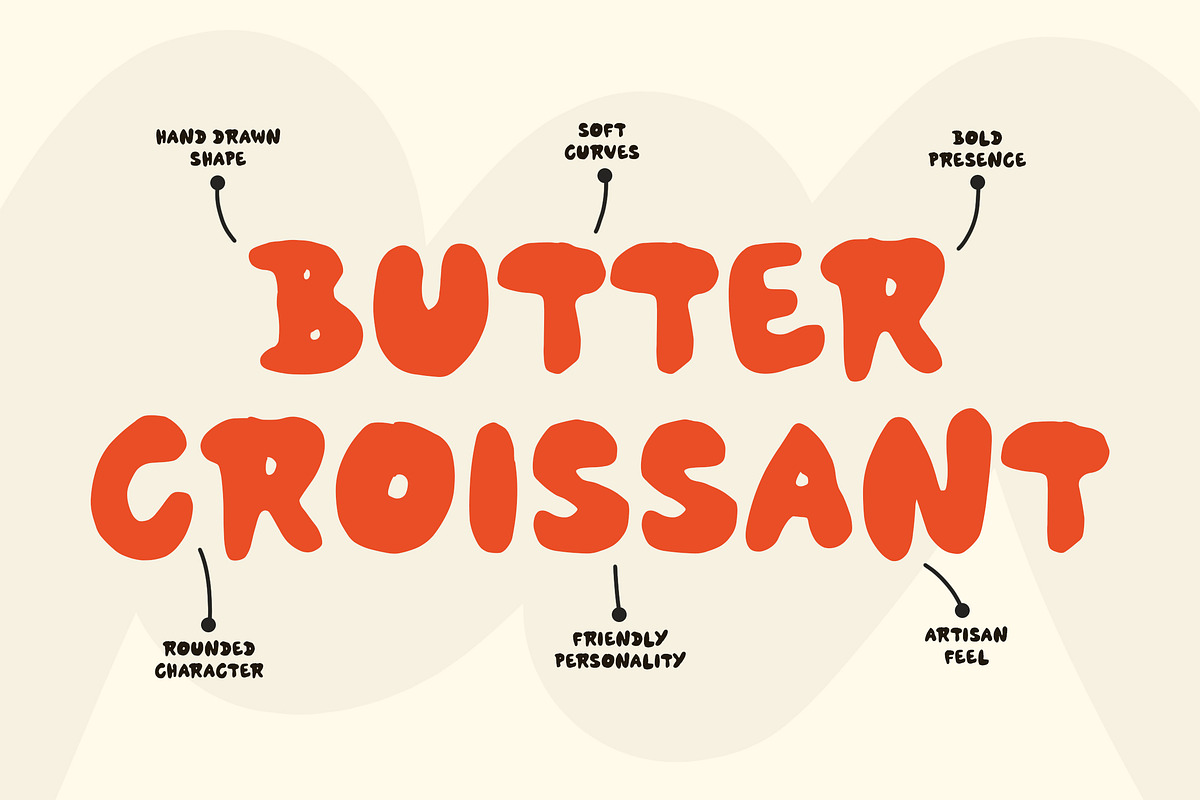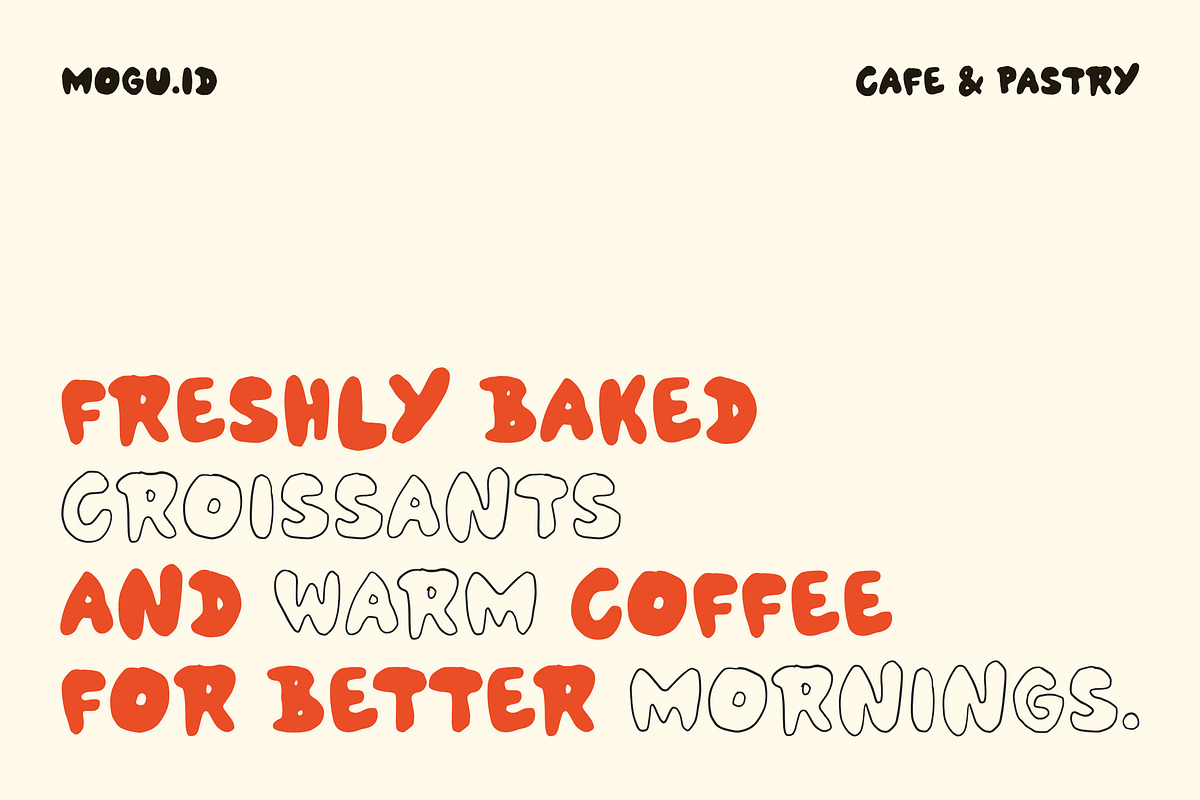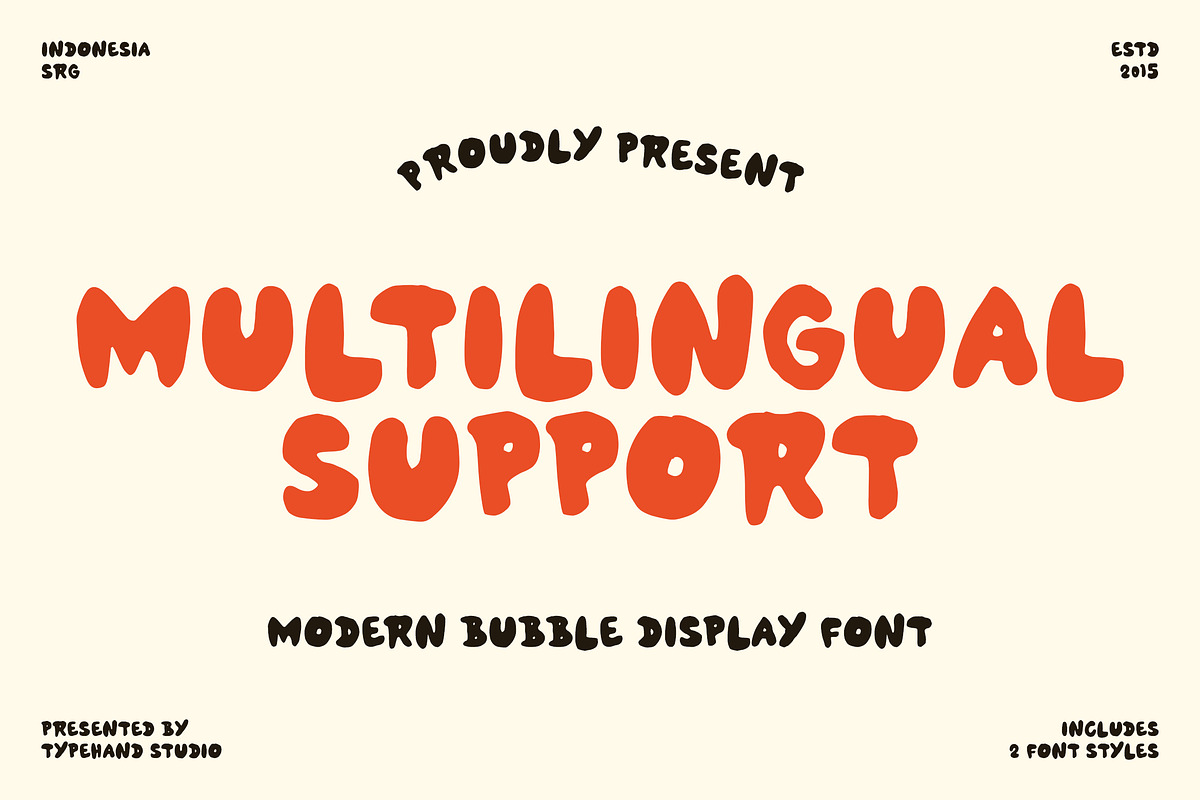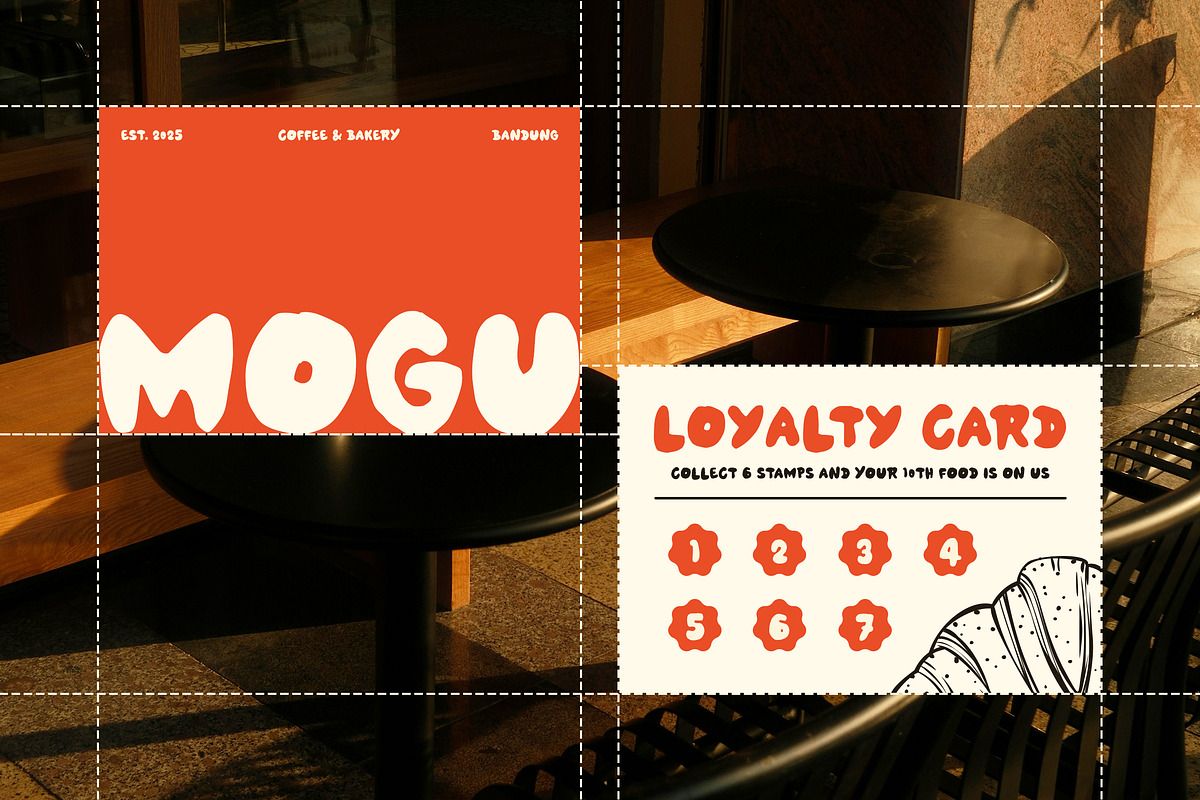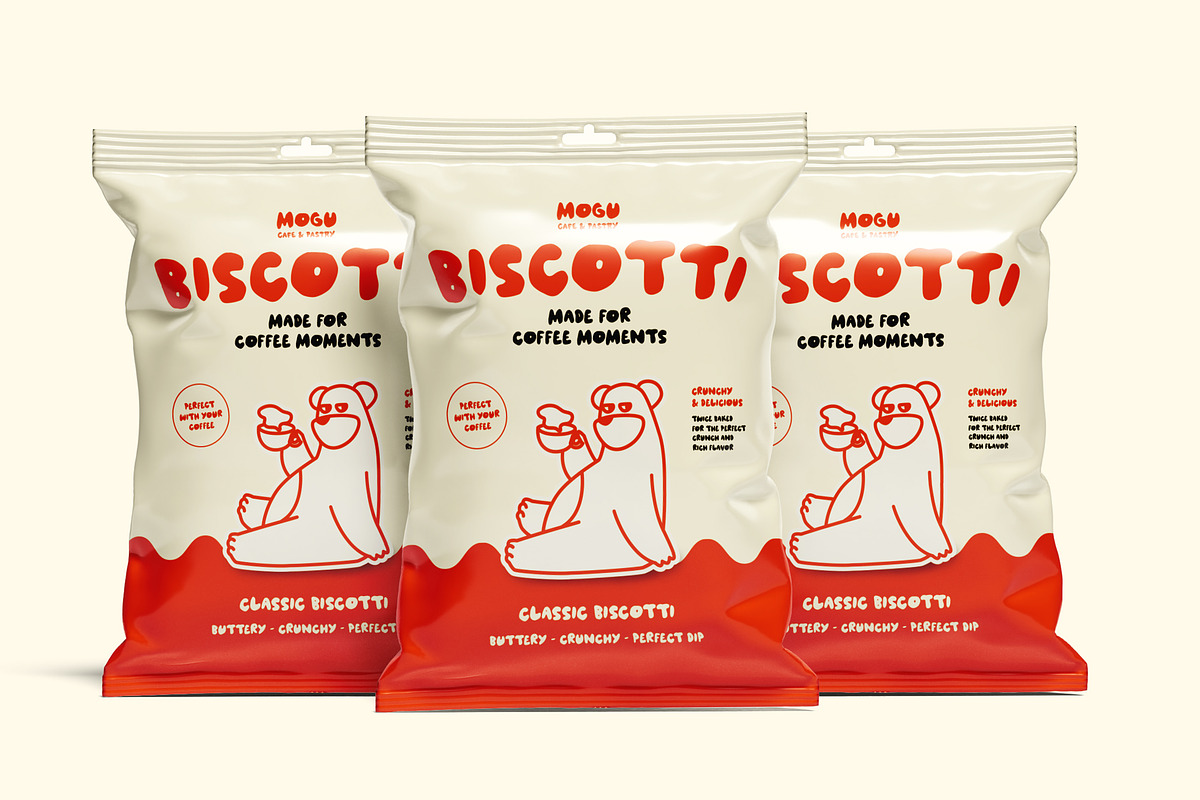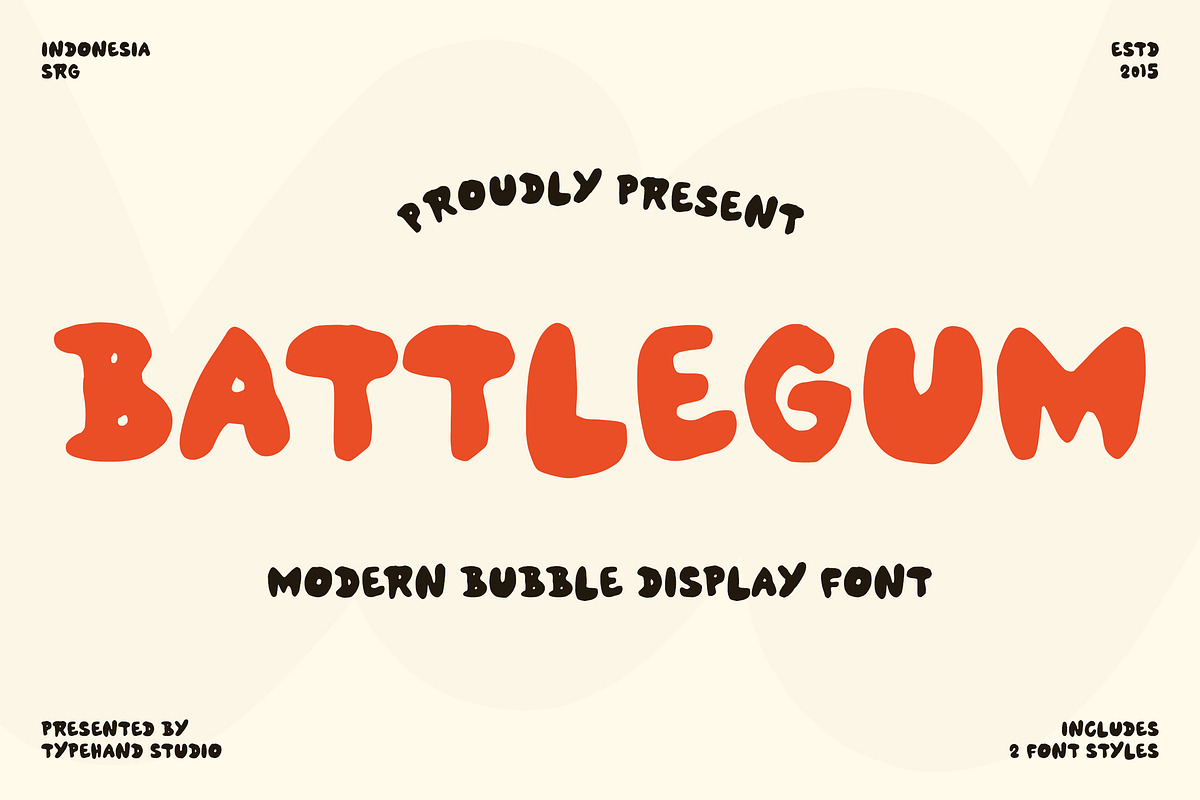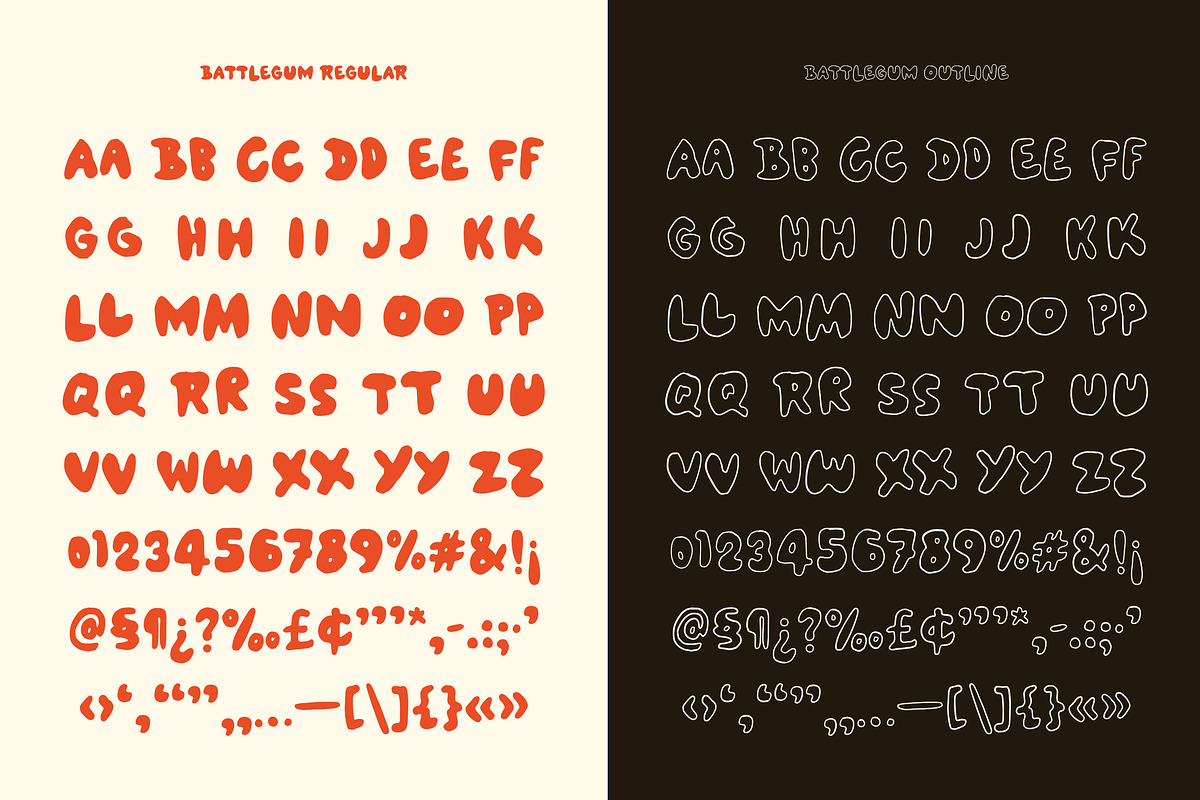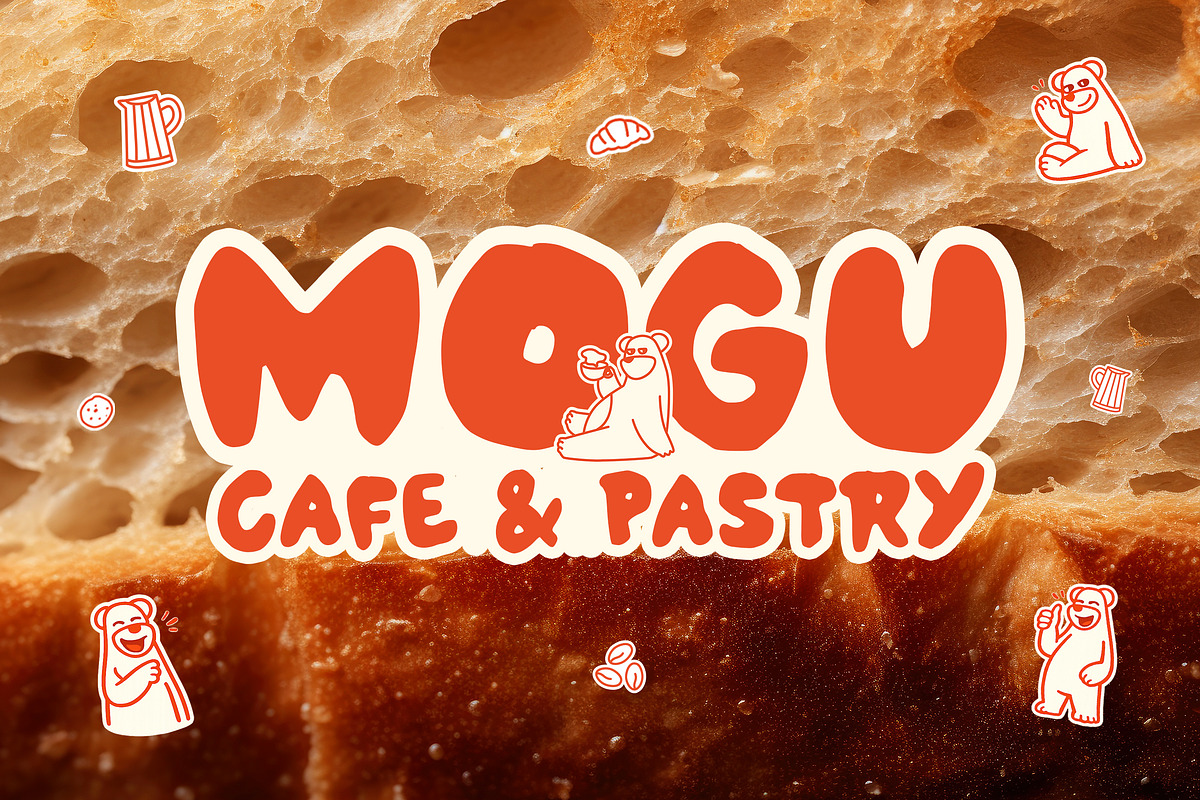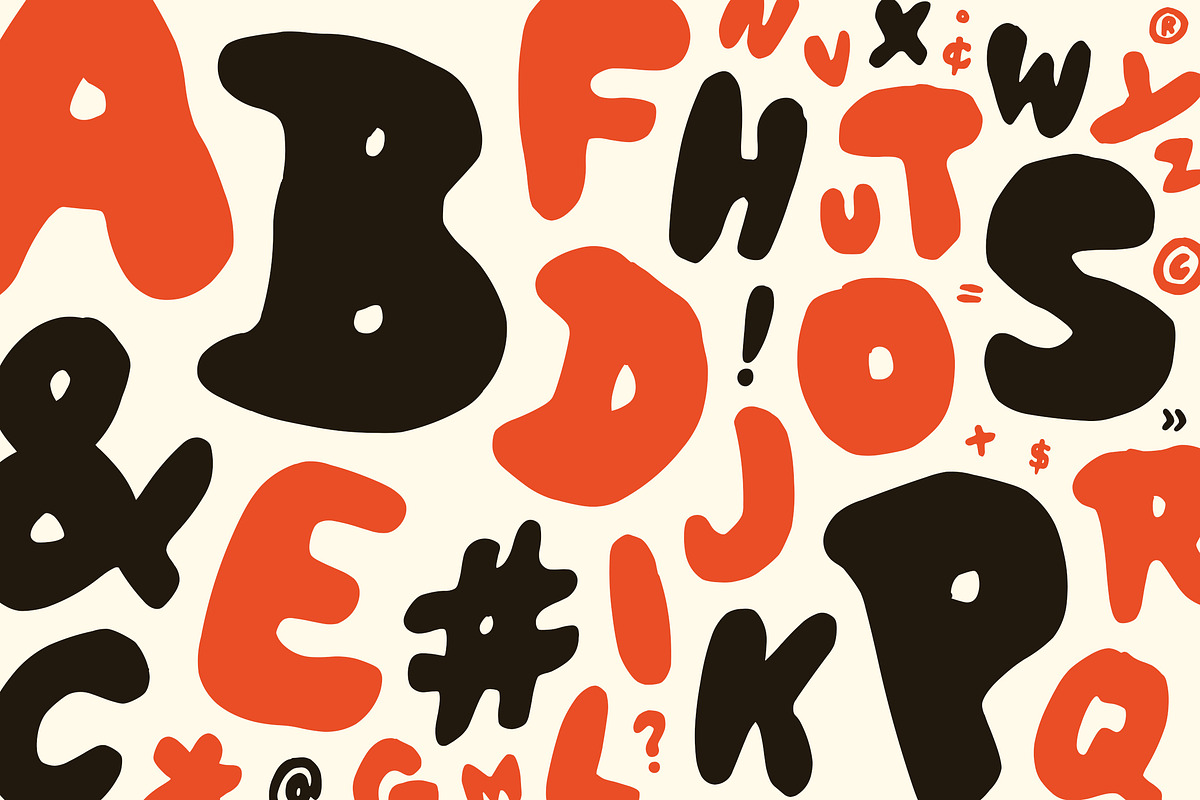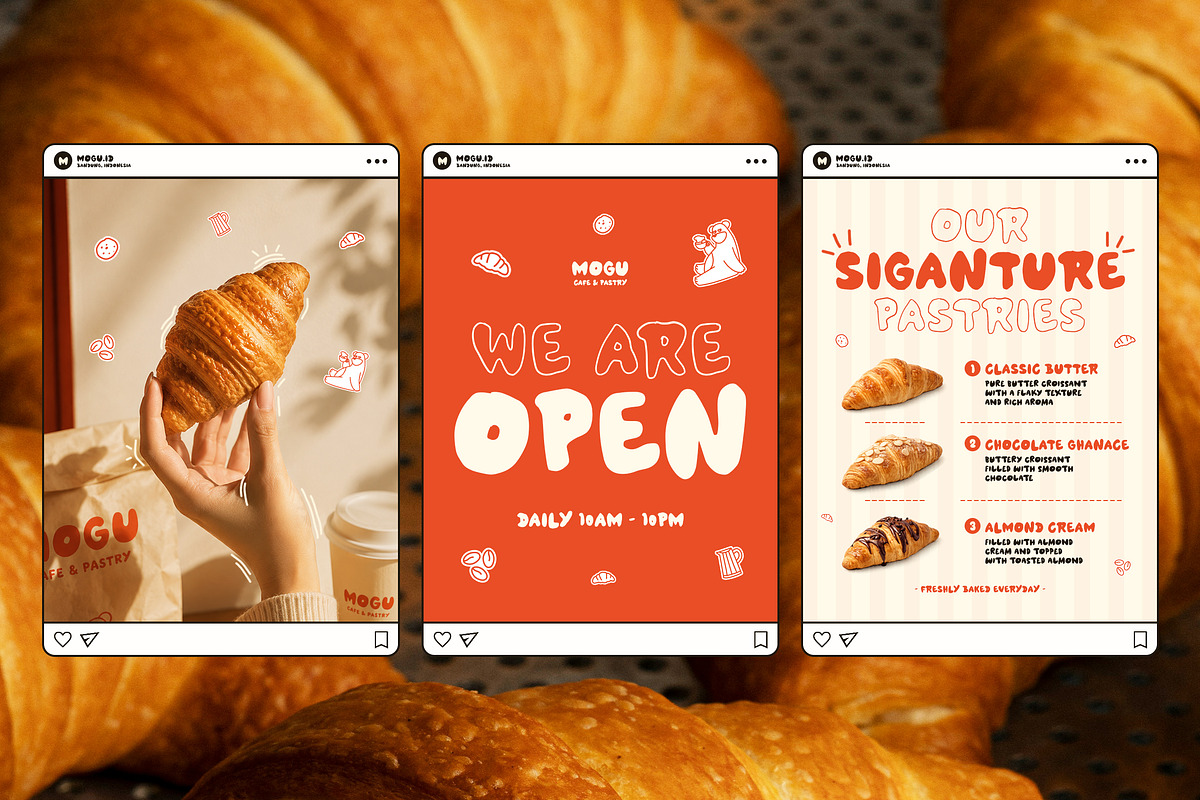
Battlegum — Modern Bubble Display
Battlegum is a modern bubble display font designed to inject high-impact energy, fun, and tactile presence into contemporary branding. Inspired by retro bubblegum aesthetics and vibrant street food culture, this plump typeface turns packaging titles, product logos, and promotional headlines into mouthwatering visual statements that demand attention.
Constructed with ultra-thick, puffed silhouettes and smooth bulbous curves, Battlegum balances massive physical weight with approachable warmth. Tight internal counters and rounded edges deliver a cheerful, tactile bounce. Uppercase and lowercase keys offer complementary bubble shape variations, allowing designers to create organic, non-repetitive headline arrangements without manual tweaking.
Engineered for food and beverage branding, packaging designers, and youth apparel creators, Battlegum excels across high-visibility consumer products. It is the perfect choice for biscuit and chip pouches, bakery logos, cafe loyalty cards, social media promo graphics, sticker packs, and merchandise graphics.
The family includes two cohesive styles—Battlegum Regular (Solid) and Battlegum Outline—built specifically for striking typographic layering and contrast. Supported by full all-caps unicase characters, bold numerals, punctuation, and multilingual accents, Battlegum delivers an instant, commercially ready asset for bold creative projects.